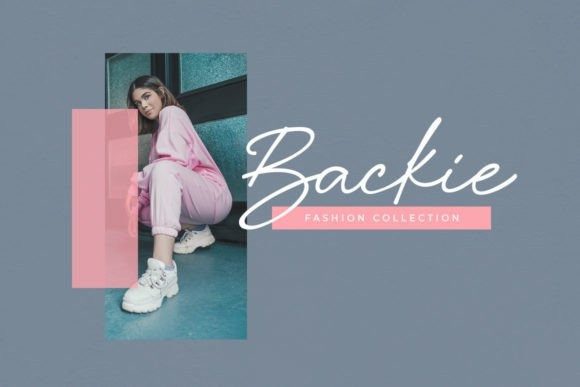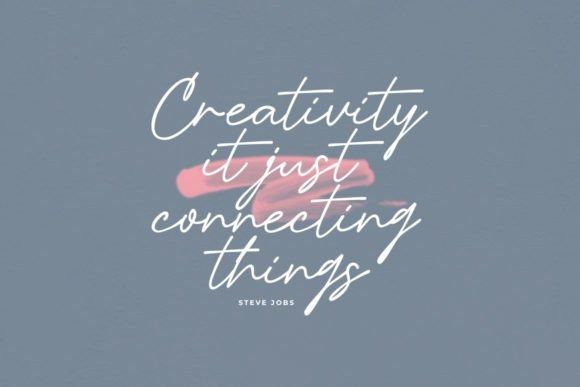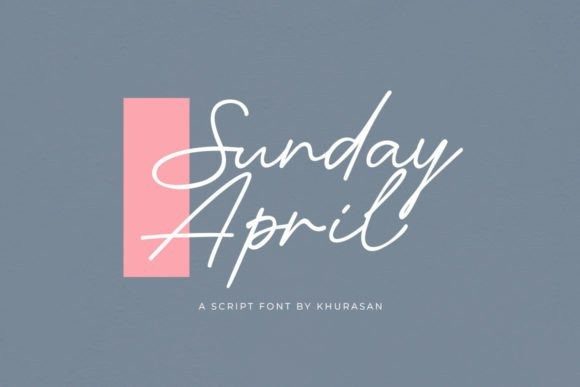
Sunday April Script Font
Sunday April Script Font is a modern and elegant script font perfect for posters, logos, magazines, book covers, banners, and many more! Get this amazing font, and use it to create lovely designs!